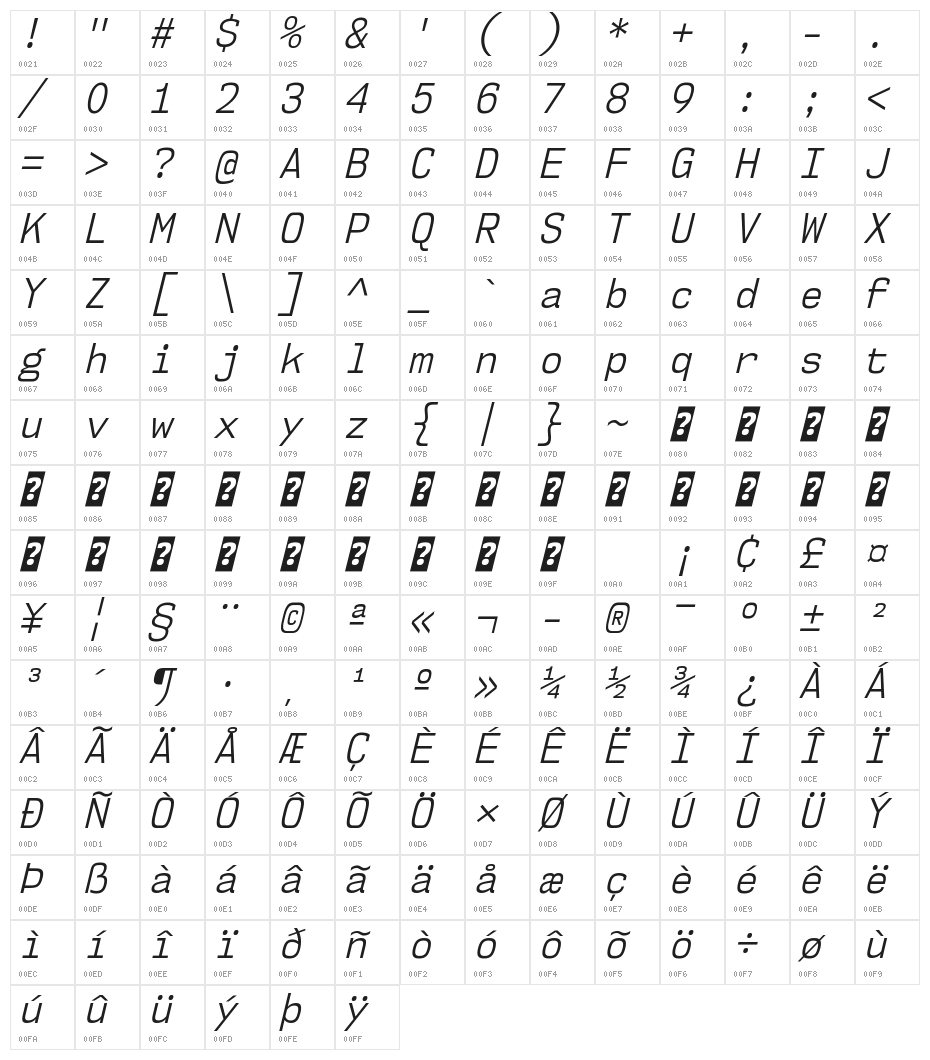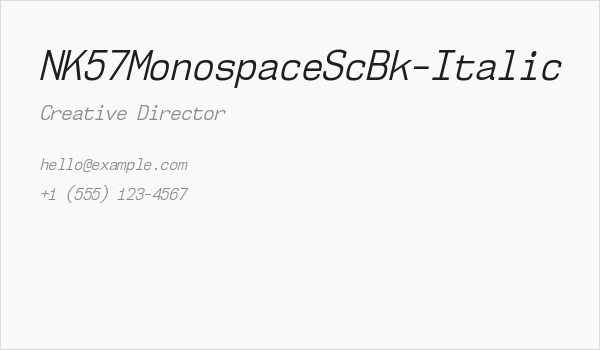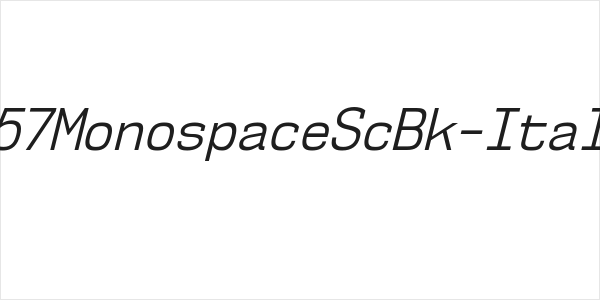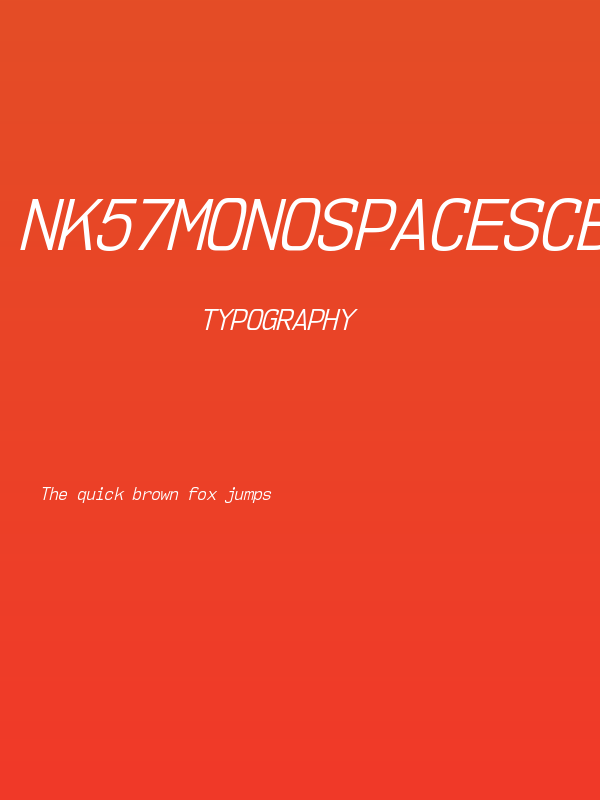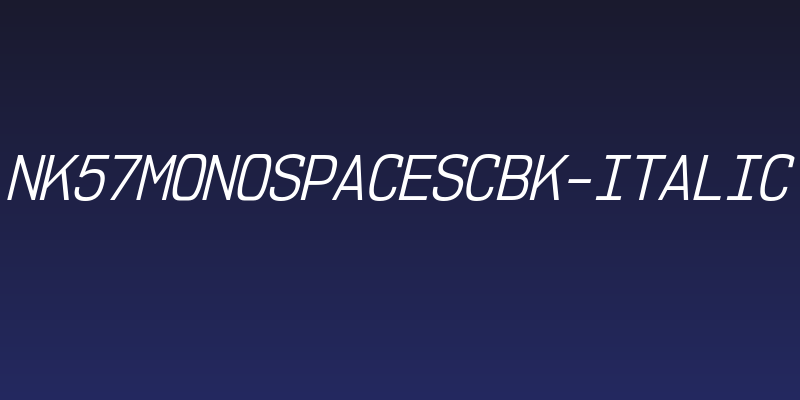
NK57MonospaceScBk-Italic Font
NK57MonospaceScBk-Italic Description
This font features a clean, modern design with a monospaced structure, ensuring each character occupies the same amount of horizontal space. The italic style adds a dynamic and forward-leaning appearance, enhancing its contemporary look. The characters are well-defined with a consistent stroke width, providing a uniform and orderly aesthetic. The font includes a full set of uppercase and lowercase letters, numbers, and a variety of special characters, making it versatile for various applications. Its simplicity and clarity make it suitable for technical documents, coding environments, and any project requiring precision and readability.
| Use Case | Coding, Technical documents, Design projects |
| Proposed Projects | Ideal for coding, technical documentation, and design projects requiring a clean, structured appearance. |